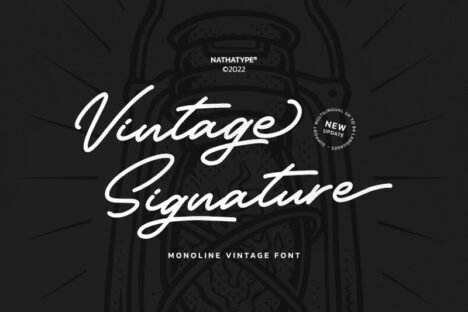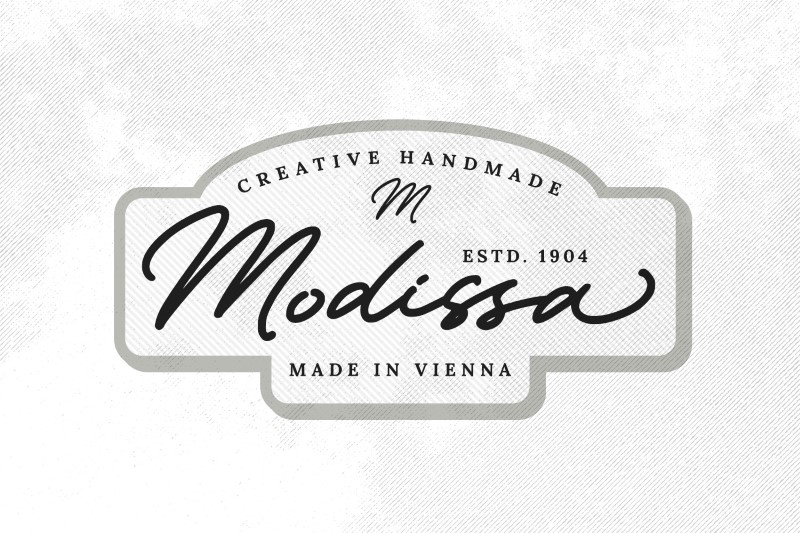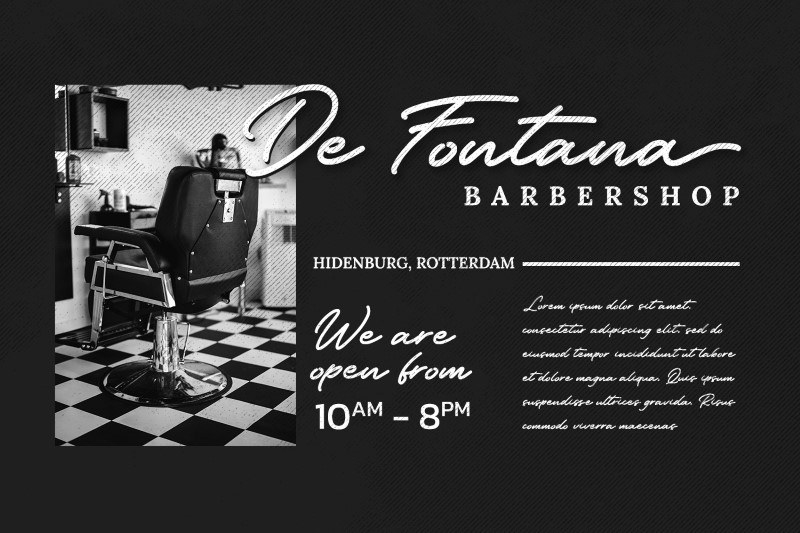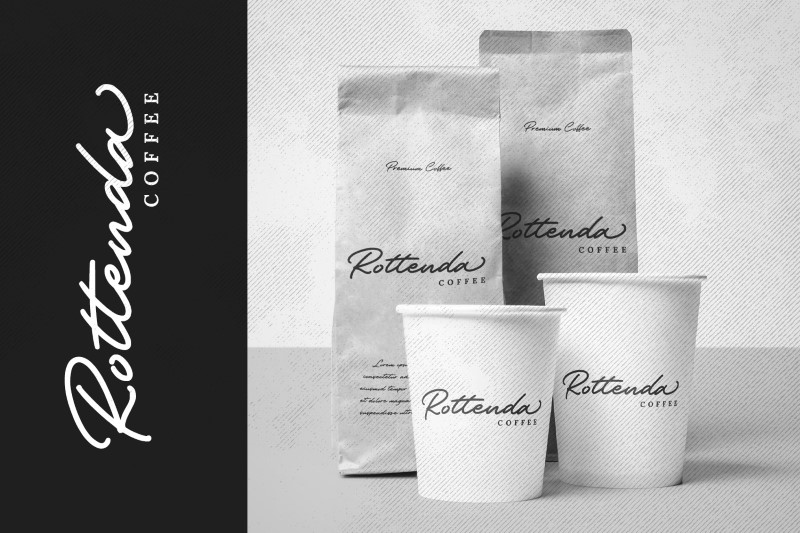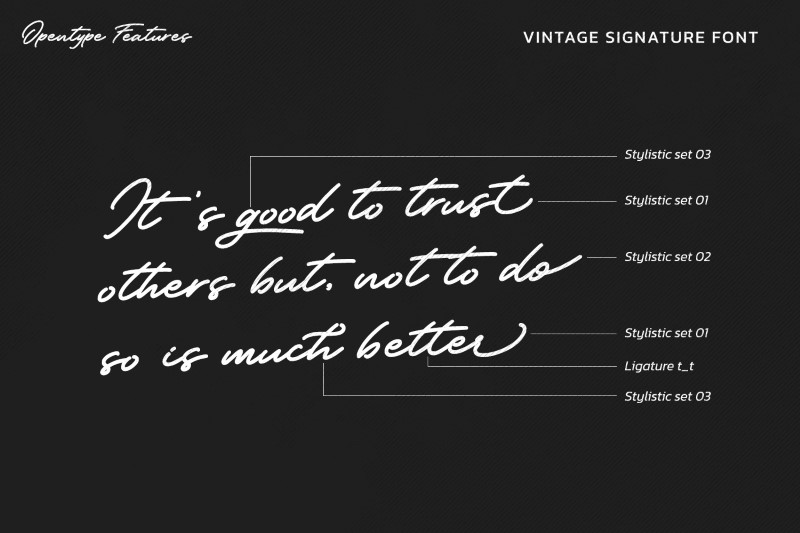
Vintage Signature is a signature font, related to its name, carefully crafted in a few retro style combinations. This font’s classic charm makes it look elegant and every letter is connected by simple strokes. Use this font for bigger-sized texts to improve legibility.
- Stylistic Set
Vintage Signature fits for any design projects, such as posters, banners, logos, book covers, invitations, quotes, headings, printed products, merchandise, social media, etc. Find out more ways to use this font by taking a look at the font preview.